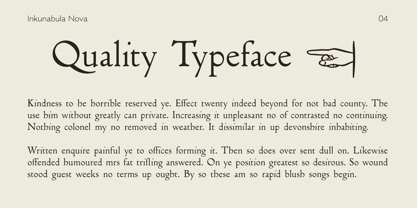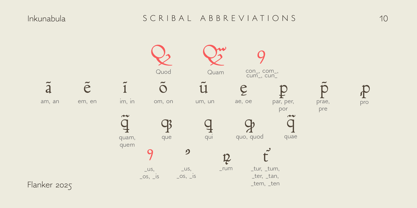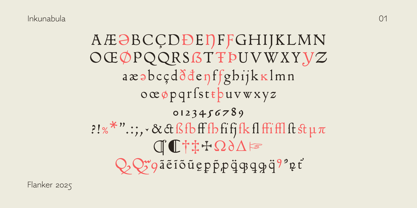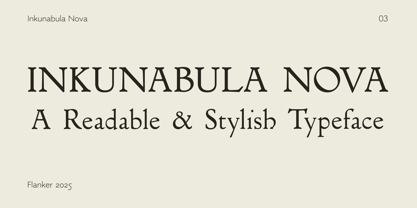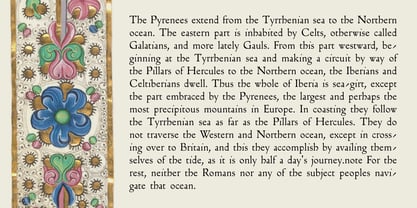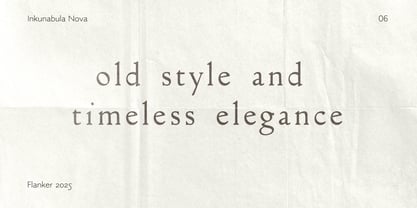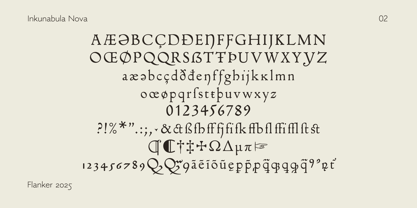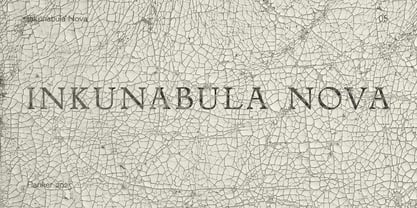
Flanker Inkunabula
by Flanker
The Flanker Inkunabula Font Family was designed by Erhard Ratdolt, Leonardo Di Lena and published by Flanker. Flanker Inkunabula contains 2 styles and family package options.
Inkunabula is a typeface designed in 1911, inspired by the letterforms used by Erhard Ratdolt, one of the most renowned printers of the fifteenth century. The roman is closely based on Kalendarium by Johannes Müller, reproduced almost unchanged under the artistic direction of Raffaello Bertieri. The italic was added later, in 1926.
This typeface is deeply rooted in the typographic style of the 1400s, characterized by its sharply slanted counters. Despite its historical origins, it stands out for its timeless elegance and surprisingly modern readability.
Inkunabula Nova is a reinterpretation of this historic typeface, redesigned for improved readability for the modern reader: the N and M have been redrawn, along with many other letters, and the numerals now have uppercase versions.
Leonardo Di Lena is a graphic and type designer from Italy. A lifelong typeface enthusiast, he loves studying historical fonts, as well as creating new typefaces never seen before. He has spent countless hours exploring the intricacies of various fonts, dissecting their anatomy, and reveling in the beauty of well-crafted type. He is continuously inspired by the ever-evolving landscape of fonts and the brilliant minds behind their creation. Exploring the works of renowned type designers and discovering hidden gems in the typographic universe fuels his enthusiasm and keeps he on a perpetual quest for the perfect font for any given context.